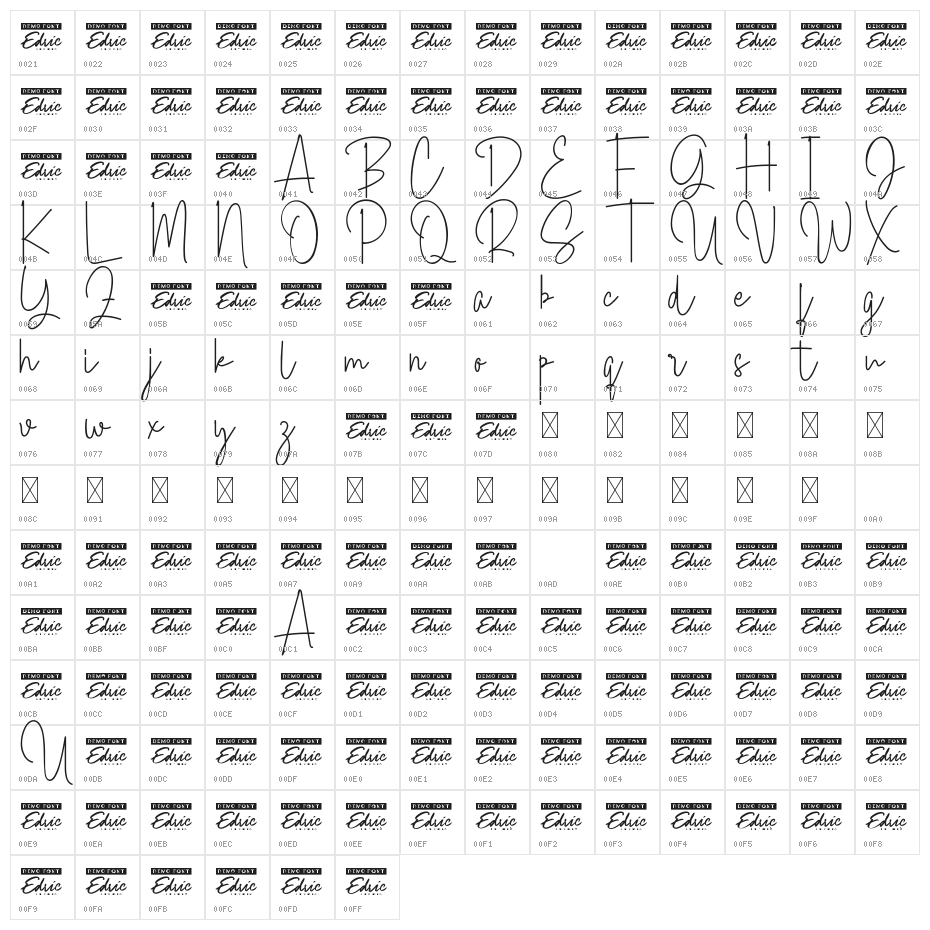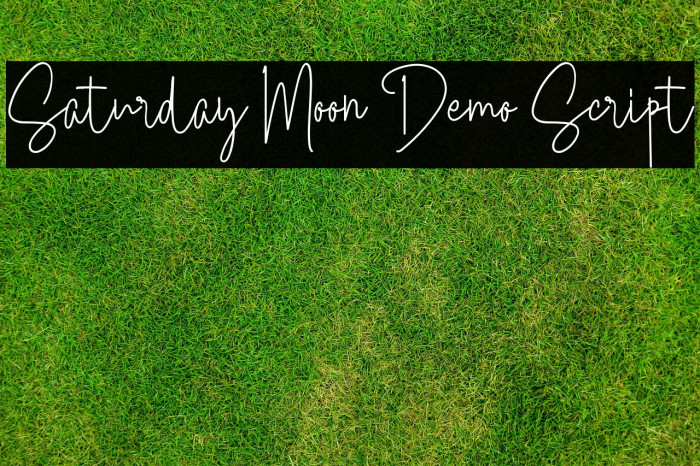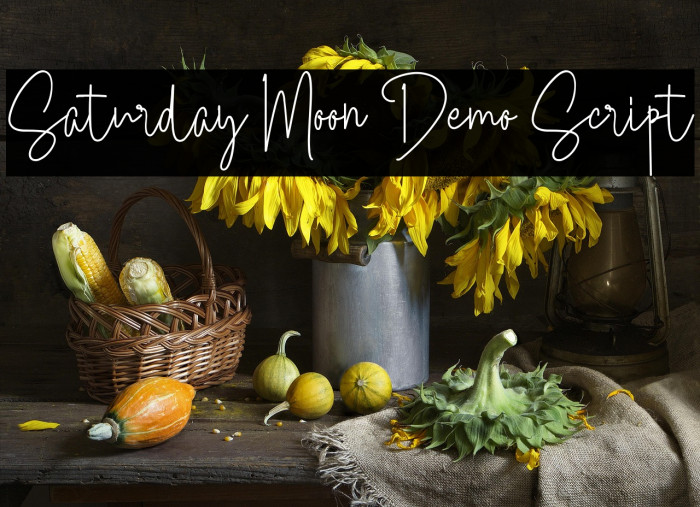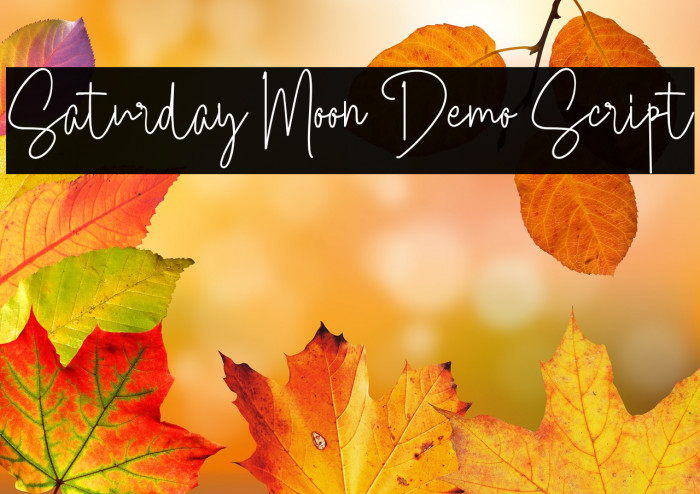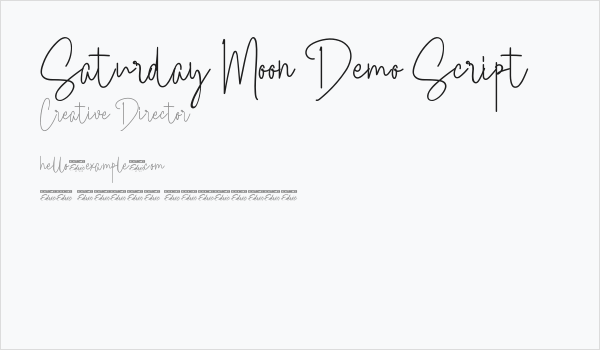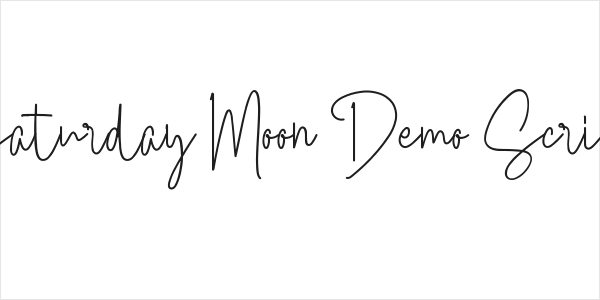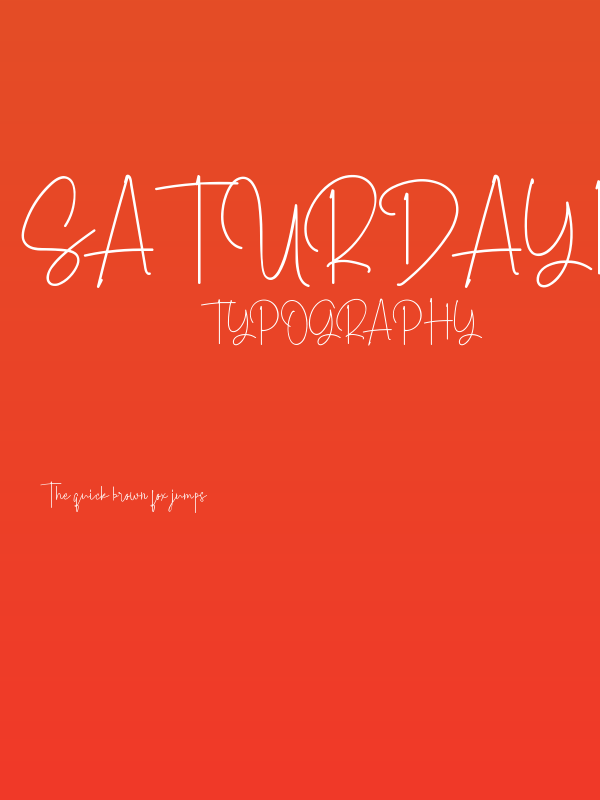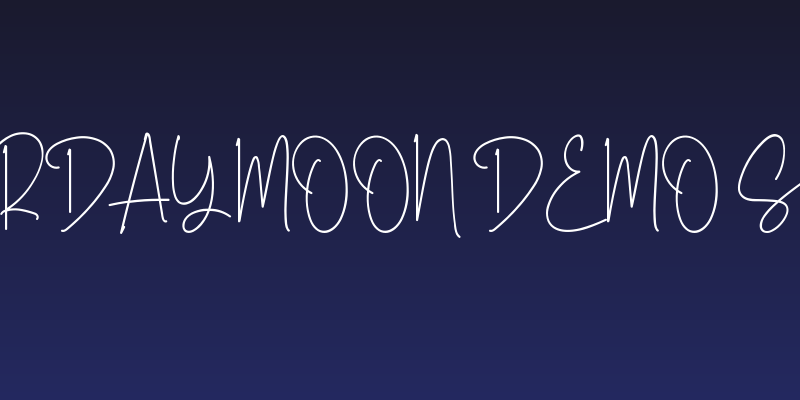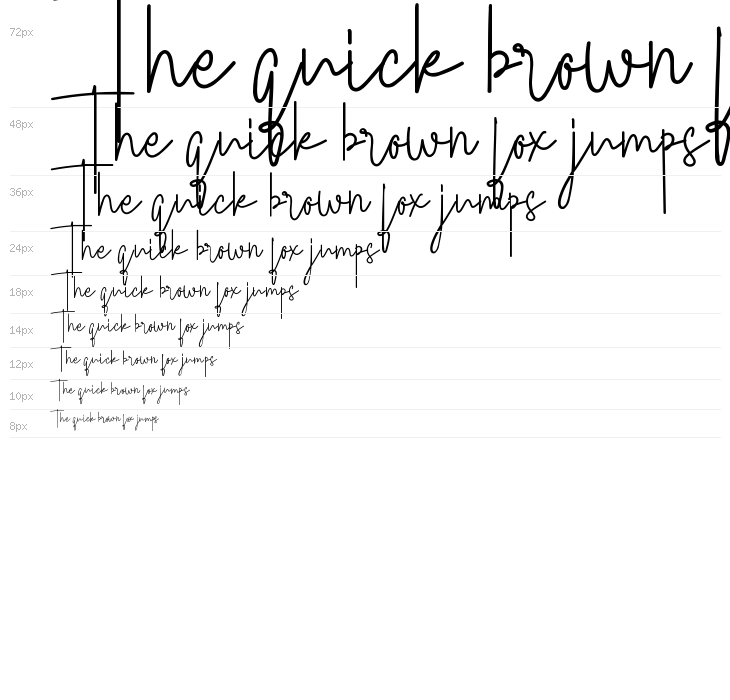
Saturday Moon Demo Script Font
Saturday Moon Demo Script Description
This font features a playful and casual script style with a handwritten appearance. The uppercase letters are tall and narrow, with a slight slant, giving them a whimsical and informal look. The lowercase letters are more fluid and connected, resembling natural handwriting. The strokes are consistent in width, providing a smooth and flowing appearance. The characters are well-spaced, allowing for easy readability while maintaining a relaxed and friendly vibe. This font is ideal for projects that require a personal touch, such as invitations, greeting cards, or branding materials that aim to convey warmth and approachability.
| Overall Style | Casual, Playful |
| Use Case | Invitations, Greeting cards, Personal branding |
| Proposed Projects | Ideal for invitations, greeting cards, personal branding, and casual design projects. |